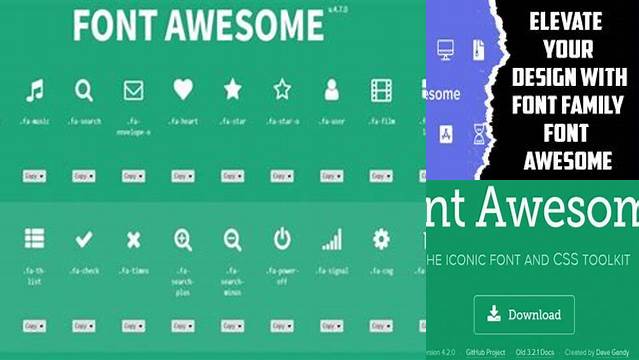
Font Family, Font Awesome 6, & Free CSS: The Ultimate Guide
Hey guys! Ever wondered how to make your website look super slick and professional? Well, a big part of that is choosing the right fonts and icons. And guess what? We're going to dive deep into the world of font families, Font Awesome 6, and free CSS to help you do just that! Buckle up, because this is going to be an epic journey into web typography and styling.
1. Understanding Font Families: The Foundation of Typography
Let's start with the basics: font families. What are they, and why should you care? Think of a font family as a group of fonts that share a similar design. This is your foundational element, guys, so we need to get this right! For example, Arial, Helvetica, and sans-serif are all part of a sans-serif font family. Why is this important? Because it ensures that your website maintains a consistent look and feel. When you specify a font family in your CSS, you're actually giving the browser a list of fonts to try. If the user's computer doesn't have the first font, it will move on to the next. This is why it’s crucial to include a generic font family (like serif, sans-serif, monospace, cursive, or fantasy) at the end of your list. This acts as a fallback, ensuring that your text will always be legible, even if your preferred fonts aren’t available. Choosing the right font family can significantly impact your website's readability and overall design aesthetic. A well-chosen font can enhance the user experience, making your content more engaging and easier to consume. Conversely, a poorly chosen font can detract from your message and make your website look unprofessional.
Therefore, understanding the nuances of different font families and how they interact is essential for any web developer or designer aiming to create a visually appealing and user-friendly website. We'll go more in depth into specific fonts later, but for now, remember: Font Families = Foundation! So let's make sure that foundation is rock solid!
2. Exploring Serif Font Families
Okay, let’s dive a bit deeper into specific types of font families, starting with the serif fonts. What exactly is a serif, you ask? Well, it's that little extra stroke or flourish at the end of each character. Think of fonts like Times New Roman or Georgia. These fonts often evoke a sense of tradition, elegance, and formality. They're commonly used in print media, such as books and newspapers, due to their readability in large blocks of text. However, they can also be used effectively on the web to convey a classic or sophisticated feel. The serifs themselves are designed to help guide the reader's eye along the line of text, making it easier to read long passages. When choosing a serif font for your website, consider the overall tone and style you want to project. A serif font might be perfect for a law firm's website or an online journal, where professionalism and credibility are paramount. On the other hand, it might not be the best choice for a trendy startup or a casual blog, where a more modern and approachable font might be more suitable. Popular serif fonts for the web include Times New Roman, Georgia, and Palatino. Each has its own unique characteristics, so it's worth experimenting to see which one best suits your needs. Remember, guys, the key is to choose a font that not only looks good but also enhances readability and user experience. So, take your time, explore your options, and find the perfect serif font to make your website shine!
3. Diving into Sans-Serif Font Families
Now, let’s switch gears and talk about sans-serif fonts. As the name suggests, sans-serif fonts don’t have those little extra strokes (serifs) at the end of each character. Think Arial, Helvetica, or Open Sans. These fonts tend to have a cleaner, more modern look. They're often favored for digital displays because of their legibility on screens, especially at smaller sizes. Sans-serif fonts are versatile and can be used in a wide range of contexts, from website body text to headlines and navigation menus. They’re particularly popular for websites with a contemporary or minimalist design. The clean lines of sans-serif fonts can create a sense of simplicity and clarity, making your website feel fresh and uncluttered. Choosing the right sans-serif font can significantly improve the readability of your content, especially for users browsing on mobile devices. Some popular sans-serif fonts for the web include Arial, Helvetica, Open Sans, and Roboto. Each of these fonts has its own distinct personality, so it’s important to consider the overall aesthetic you’re aiming for when making your selection. For instance, Open Sans is known for its friendly and approachable appearance, while Roboto has a more technical and geometric feel. When selecting a sans-serif font, think about the tone and message you want to convey. Do you want your website to feel modern and sleek, or more casual and approachable? The right sans-serif font can help you achieve the desired effect. And as always, remember to prioritize readability and user experience. So, let’s explore these sans-serif options and find the perfect one for your project!
4. Monospace Font Families and Their Uses
Alright, let’s talk about something a little different: monospace font families. These fonts are unique because every character takes up the same amount of horizontal space. Think Courier New or Monaco. This gives them a distinct, typewriter-like appearance. Monospace fonts are commonly used in coding environments because they make it easier to distinguish between characters, such as l (lowercase L) and 1 (the number one). They're also popular for displaying code snippets on websites and in documentation. The uniform width of monospace characters can enhance readability in certain contexts, especially when dealing with code or tabular data. However, monospace fonts are generally not the best choice for body text, as their uniform spacing can make long passages of text feel dense and less inviting to read. That being said, they can be used effectively for headlines or other short pieces of text, particularly when you want to create a retro or technical feel. When using a monospace font, consider the overall design aesthetic you're trying to achieve. These fonts can add a touch of nostalgia or a sense of precision to your website. They're also a great way to highlight code examples or other technical information. Popular monospace fonts for the web include Courier New, Monaco, and Consolas. Each has its own subtle variations, so it’s worth experimenting to see which one works best for your project. Remember, guys, while monospace fonts have their specific uses, they’re not always the best choice for general text. So, use them wisely and strategically to enhance the overall design and functionality of your website. Let's see how we can incorporate them thoughtfully into your projects!
5. Cursive and Fantasy Font Families: Adding Flair
Now, let’s get a little fancy, shall we? We’re diving into the world of cursive and fantasy font families! These fonts are all about adding a touch of personality and flair to your designs. Cursive fonts, as you might guess, mimic handwriting. Think Brush Script or Pacifico. They can evoke feelings of elegance, creativity, or informality. Fantasy fonts, on the other hand, are more decorative and whimsical. They can range from playful and cartoonish to ornate and gothic. Think Papyrus or Comic Sans (though, let’s be honest, maybe avoid Comic Sans unless you're aiming for a specific, tongue-in-cheek effect!). Cursive and fantasy fonts are best used sparingly, as they can be difficult to read in large blocks of text. They’re ideal for headings, logos, or other short pieces of text where you want to make a statement. When choosing a cursive or fantasy font, consider the overall tone and style of your website. These fonts can add a lot of personality, but they can also clash with a more formal or professional design. It’s important to strike the right balance and ensure that your font choices enhance your message rather than detract from it. Popular cursive fonts for the web include Pacifico, Brush Script MT, and Lobster. Fantasy fonts are more varied, but some popular options include Papyrus (use with caution!) and various handwritten-style fonts. Remember, guys, cursive and fantasy fonts are like spices – a little can go a long way! So, use them judiciously and let your creativity shine through! How can we sprinkle these fonts in just the right way to make your site pop?
6. Combining Font Families for Visual Harmony
Okay, so you know about different font families, but how do you use them together? That's where the art of combining font families comes in! Mixing and matching fonts can add visual interest and hierarchy to your website, but it’s crucial to do it right. The goal is to create a harmonious and balanced look, not a chaotic mess. A good rule of thumb is to choose one font for headings and another for body text. This helps to differentiate the different sections of your content and make it easier for users to scan and read. When selecting fonts to combine, look for fonts that complement each other. For example, you might pair a serif font for headings with a sans-serif font for body text, or vice versa. This creates a visual contrast that can be both appealing and functional. Another approach is to choose fonts from the same font superfamily. These fonts are designed to work well together and often have variations in weight and style that you can use to create visual hierarchy. It’s also important to consider the overall tone and style of your website when combining fonts. If you’re aiming for a professional and sophisticated look, you might choose a more classic pairing, such as a serif heading with a sans-serif body. If you want a more modern and playful feel, you could experiment with bolder and more contrasting font combinations. Remember, guys, the key is to experiment and find what works best for your specific project. Don’t be afraid to try different combinations and see what looks good. And most importantly, always prioritize readability and user experience. Let's get those fonts playing nicely together!
7. Understanding Font Weights and Styles
Let's talk about adding some weight to your words – literally! Understanding font weights and styles is crucial for creating visual hierarchy and emphasis on your website. Font weight refers to the thickness of the characters, ranging from lighter weights like 100 (Thin) to heavier weights like 900 (Black). Common font weights include normal (which is usually equivalent to 400), bold (700), and bolder or lighter relative to the parent element’s weight. Using different font weights can help you create visual contrast and draw attention to specific elements, such as headings or important keywords. For example, you might use a heavier font weight for headings to make them stand out from the body text. Font style, on the other hand, refers to whether the font is italic or normal. Italicizing text can add emphasis or indicate a different tone or voice. For example, you might use italics for quotations, book titles, or foreign words. When using font weights and styles, it’s important to be consistent and strategic. Overusing bold or italic text can make your website look cluttered and unprofessional. Instead, use these styles sparingly to highlight key information and create a clear visual hierarchy. Consider the overall design and tone of your website when choosing font weights and styles. A minimalist design might benefit from subtle variations in font weight, while a bolder design might call for more dramatic contrasts. Remember, guys, font weights and styles are powerful tools for enhancing your website’s typography, but they should be used thoughtfully and intentionally. How can we make your text stand out in the right way?
8. The Role of Font Size in Readability
Okay, let’s zoom in on something super important: font size. It’s not just about making things bigger or smaller; it’s about readability and user experience! The font size you choose can significantly impact how easily users can read and understand your content. A font that’s too small can strain the eyes and make your website feel cluttered, while a font that’s too large can be overwhelming and make your text look disjointed. The ideal font size will depend on a variety of factors, including the font family you’re using, the screen size of the device, and the overall design of your website. However, a good starting point for body text is around 16 pixels (px). This size is generally considered to be comfortable and readable on most screens. For headings, you’ll want to use larger font sizes to create a clear visual hierarchy. Heading sizes typically range from 24px to 36px or even larger, depending on the level of the heading (H1, H2, H3, etc.). When choosing font sizes, it’s also important to consider the line height (the vertical space between lines of text) and the letter spacing (the horizontal space between characters). These factors can affect readability just as much as font size itself. A good line height is typically around 1.5 times the font size, while letter spacing should be adjusted to ensure that the text looks balanced and legible. Remember, guys, the goal is to make your content as easy as possible to read. So, experiment with different font sizes, line heights, and letter spacing until you find the perfect combination for your website. Let's make those words shine!
15. Common Font Awesome 6 Icon Use Cases
Let’s get practical! Where can you actually use these awesome Font Awesome 6 icons? There are tons of common Font Awesome 6 icon use cases, guys! Let's explore some of the most popular ones. One of the most common uses is in navigation menus. Icons can help users quickly identify different sections of your website. For example, you might use a home icon for your homepage, a user icon for your profile page, and a search icon for your search bar. Icons are also great for buttons. They can make buttons more visually appealing and easier to understand. For example, you might use a shopping cart icon for an